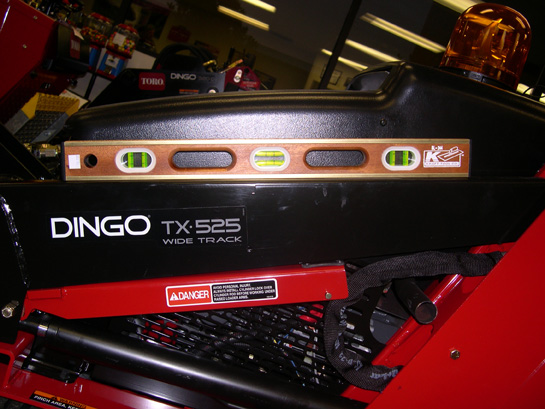
Is this a font???
Is the "DINGO" a true font or made up, I need to make the word "diesel" the same. Thanks
Looks like a font to me. :wink:
Seriously, I would just pick something close and tweak on it myself 'til it looked like it. Just get the "D" and "I" right and who cares about the rest of the letters in "DIESEL" ?
I'm with Gear on this one, find something close, like Fred's choice & tweak it.
You got an E to copy from that lower line of text, Handel's "S" looks ideal, although I reduce the radius on Handel's "L" to match the sharper corner in DINGO's G
That is a font, I checked my collection as well as FontShops and T-26 but it's not there. I forgot where I have seen it but too many typefaces around too remember.
This is not the font, but it's closer to the other suggestions.
Ths font is House Industries Housemovements Runway (It comes with the House Industries 10th Aniversary book). The top one is how it comes and the bottom one has a stroke on it.